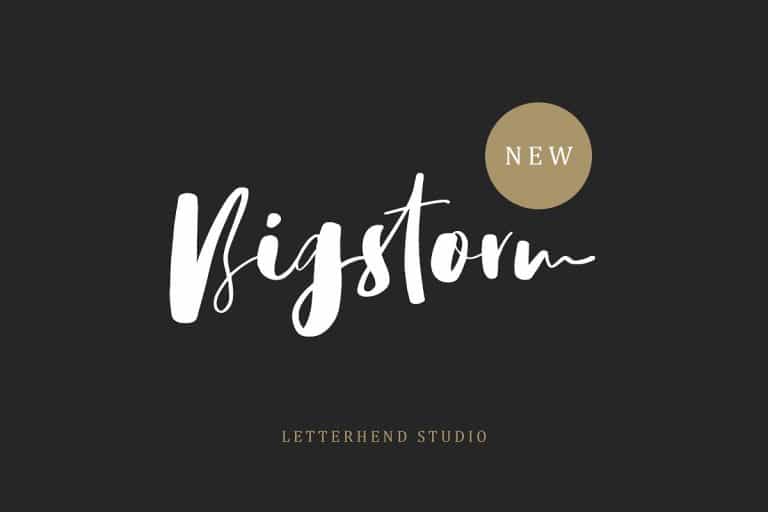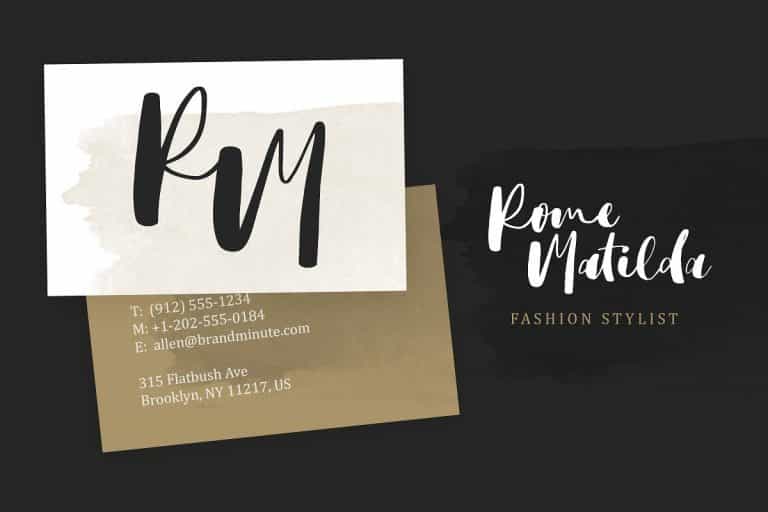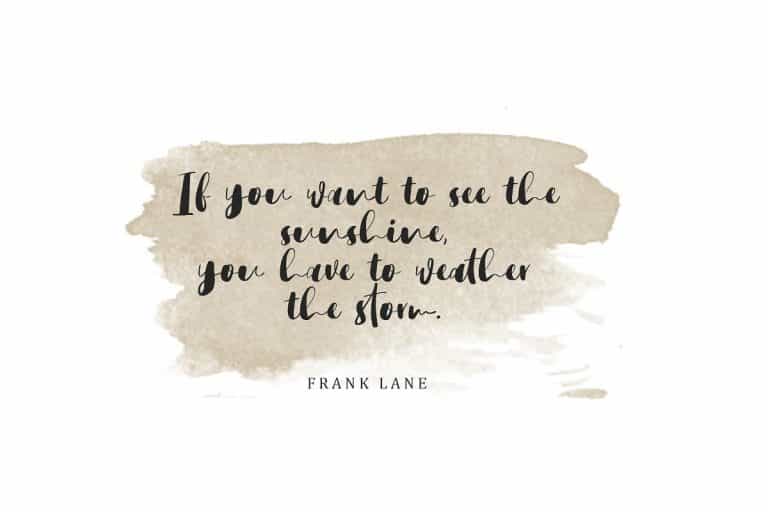
Discover Bigstorm Script Font, part of the Brush collection—a versatile and unique font perfect for adding a personal touch to your projects. Download it for free and enjoy crafting designs with style, from invitations to social media posts. This font is available exclusively for personal use, giving you the freedom to create without limits. Unlock your creativity with Bigstorm Script Font today!
Introducing Bigstorm Font. Bigstorm is a one of the kind font that will steal your heart at once. This font is just right for the signatures, headlines, quotes in lettersing style, wedding invitations and fashion.